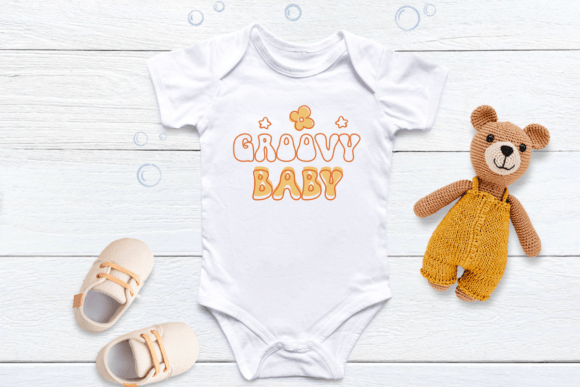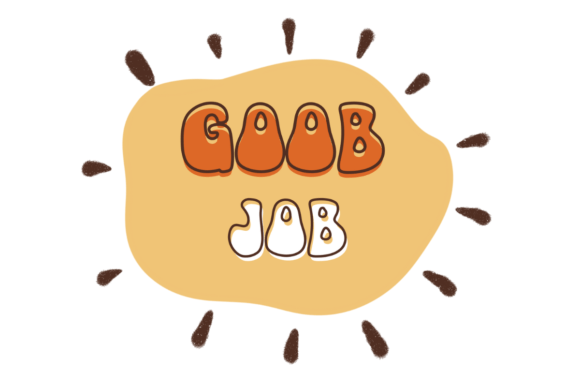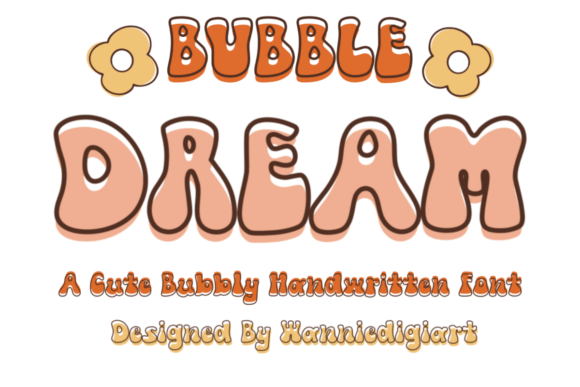
Meet Bubble Dream: The Font That’s a Breath of Fresh Air
Have you ever been in the middle of a design project, and suddenly, you just can’t seem to find the right font? I recall a particularly frustrating moment when I was working on a children’s book project. My client wanted a font that was fun, playful, and engaging – something that would make their story come alive. After hours of scouring through font libraries, I stumbled upon Bubble Dream, and it was love at first sight! ✨
The Charm of Bubble Dream
Bubble Dream is a font that’s all about fun and playfulness! Imagine bubbly, round letters that look like they’re straight out of a cartoon. It’s perfect for anything that needs a touch of joy – like kids’ books, party invites, or cute greeting cards. Bubble Dream is super charming and will definitely bring a smile to your face. It’s like a little burst of happiness in every letter.
- ✨ The playful, bubbly design that’s sure to bring a smile to anyone’s face
- ✅ The font’s versatility – it works beautifully for both digital and print projects
- 🌈 The wide range of colors and textures you can pair with it to create stunning visuals
While Bubble Dream is an amazing font, there are a few things to keep in mind: 🤔
- ⚠️ It may not be the best choice for body text, as it’s quite ornamental and may be difficult to read in large blocks
- ⚠️ Some of the letters and glyphs may appear a bit irregular or imperfect, which can be a deliberate design choice but might not appeal to everyone
Bubble Dream comes with a range of OpenType features and glyphs that can enhance your designs:
- Stylistic alternates: Swap out letters for alternative designs to add more personality to your text
- Glyphs: Access a range of special characters, such as ligatures and ornaments, to add visual interest
The Backstory of Bubble Dream
While I couldn’t find much information on the origins of Bubble Dream, I like to imagine that it was created by a designer who wanted to bottle up the joy and playfulness of childhood. Perhaps they were inspired by the whimsical world of cartoons and comics, where characters and letters come alive in a world of color and imagination.
Q: What type of projects is Bubble Dream best suited for?
A: Bubble Dream is perfect for projects that need a touch of fun and playfulness, such as kids’ books, party invites, greeting cards, and more.
Q: Is Bubble Dream a difficult font to read?
A: While Bubble Dream is a decorative font, it can be a bit challenging to read in large blocks. It’s best used for headlines, titles, or short paragraphs.